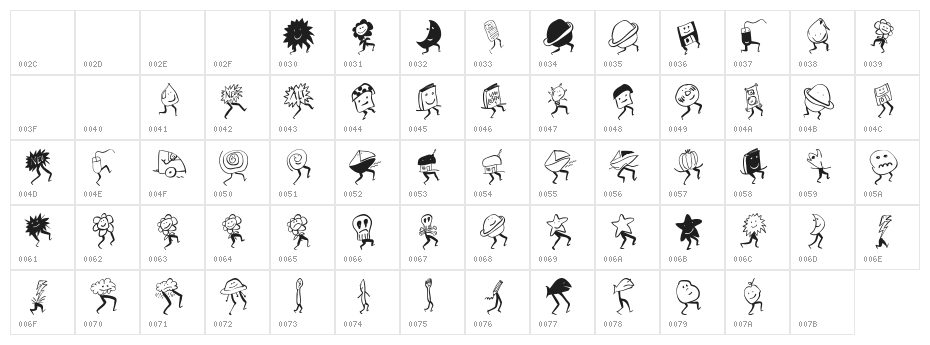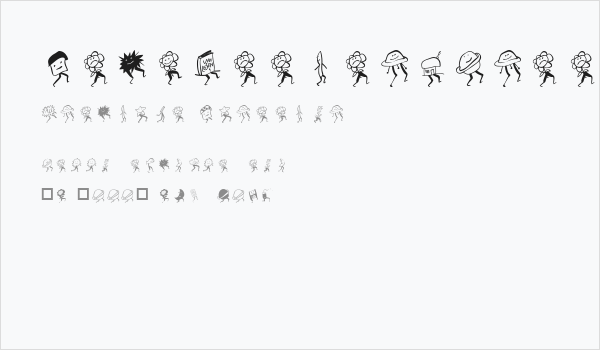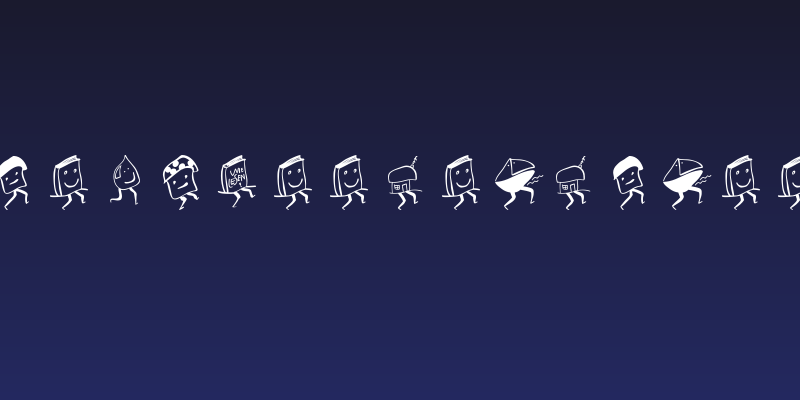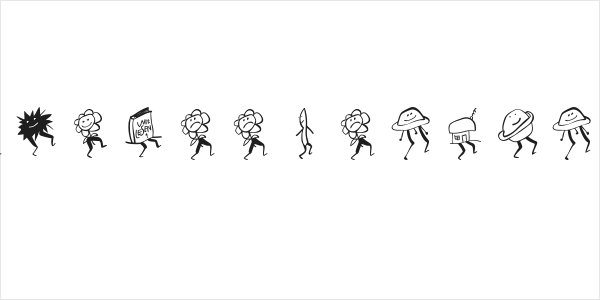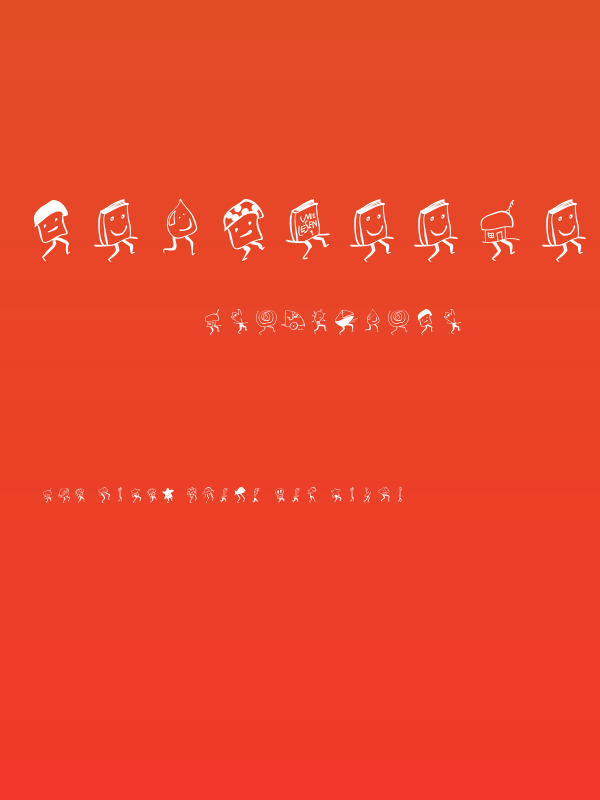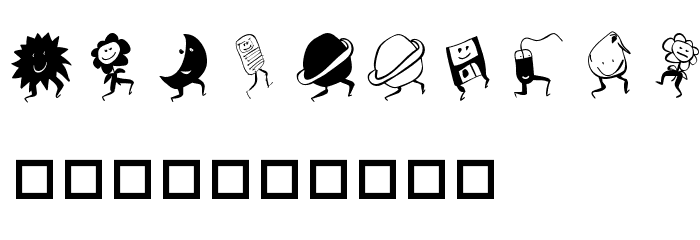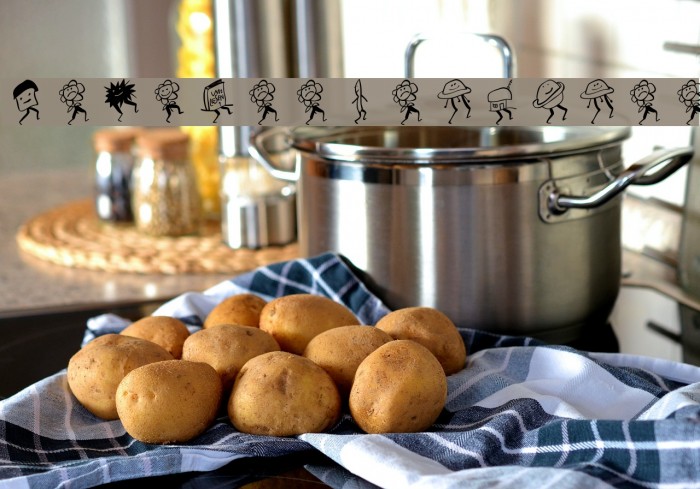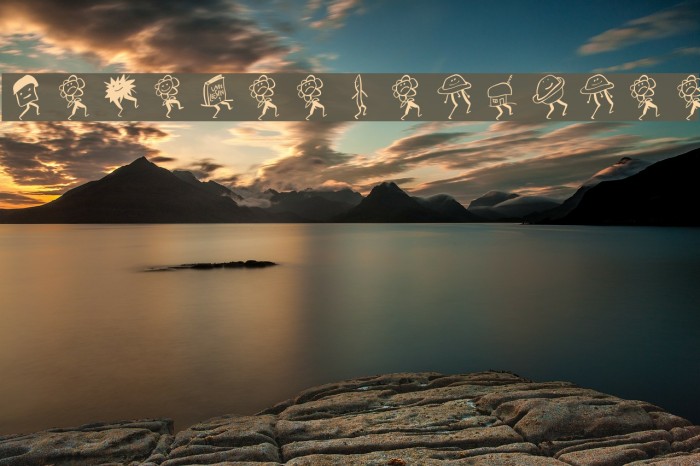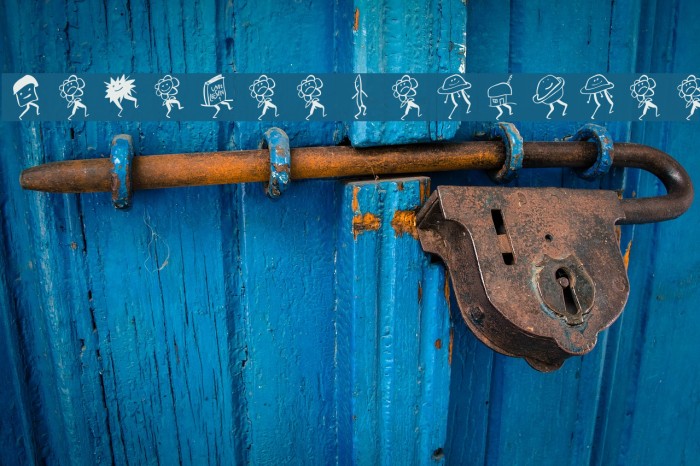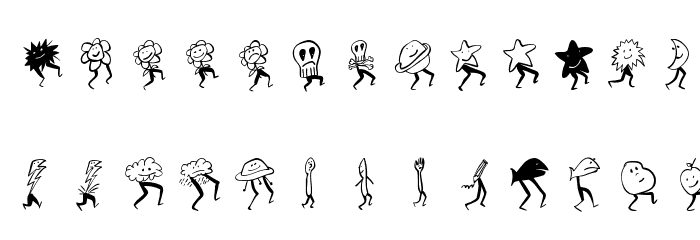
HeadFeeterThree Font
HeadFeeterThree Description
| Overall Style | Whimsical, Playful, Cartoonish |
| Use Case | Decorative icons, embellishments, creative headings, visual storytelling. |
| Proposed Projects | Children's books, playful branding, party invitations, educational materials, comics, creative posters. |